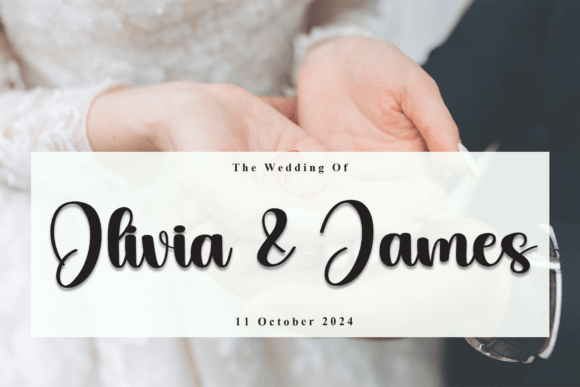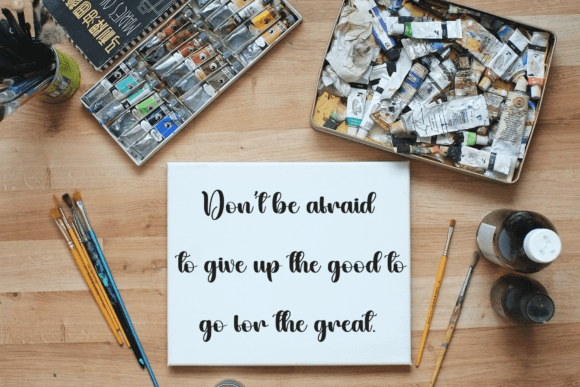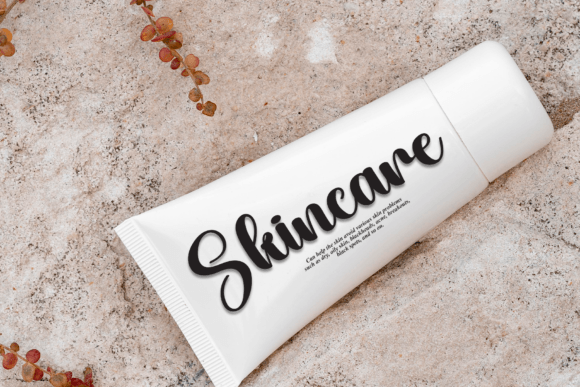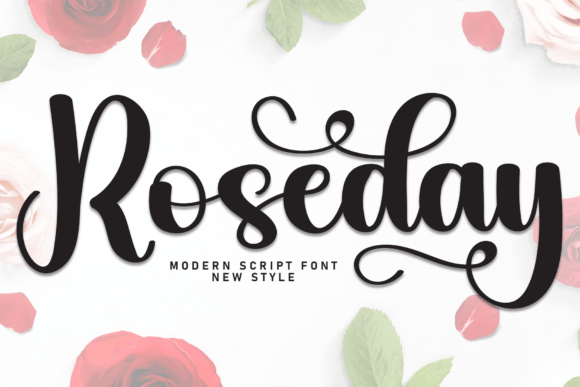
Introduction to Roseday Font
Roseday is a bold, handwritten font with a stylish and expressive look.
Its thick strokes and unique curves make it perfect for adding a personal, creative touch to any design .
Key Features of Roseday Font
Why Choose Roseday Font?
Roseday Font offers exceptional quality and versatility, making it a valuable addition to your design toolkit. Whether you’re creating for personal projects or commercial use, Roseday Font delivers professional results.